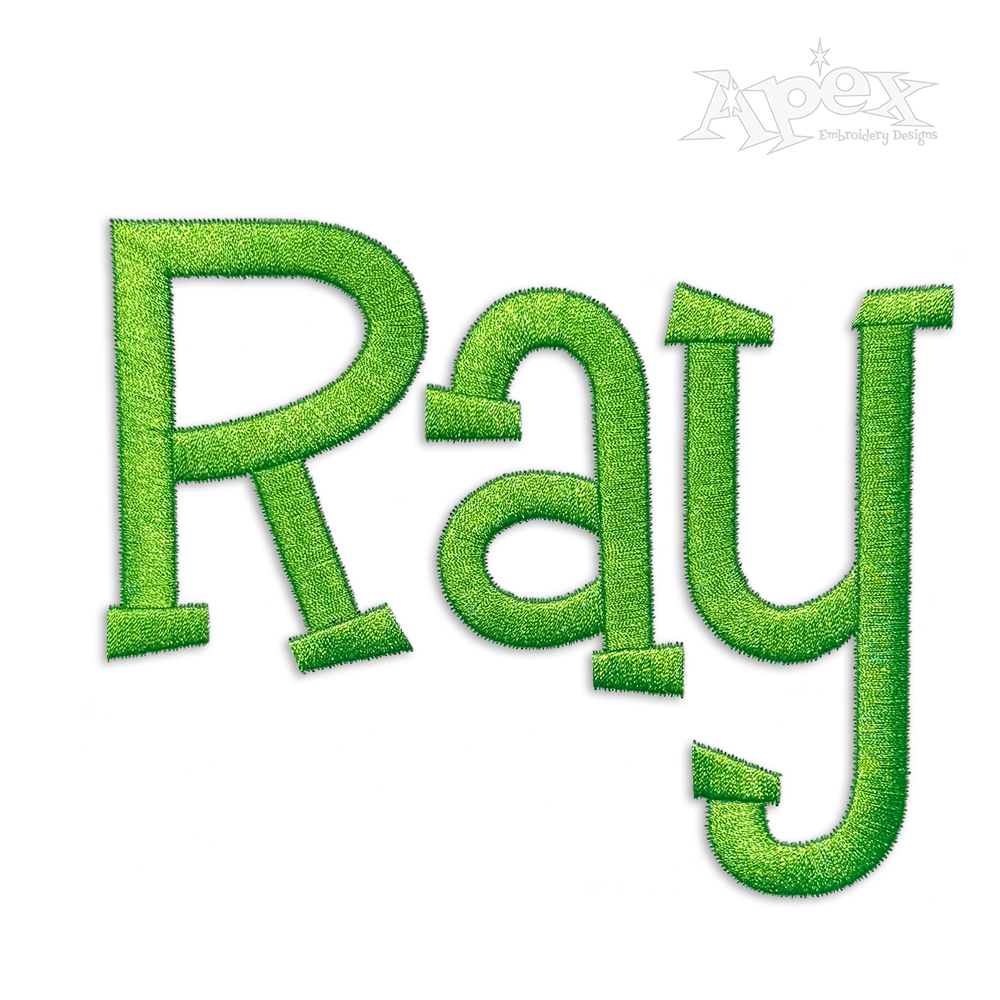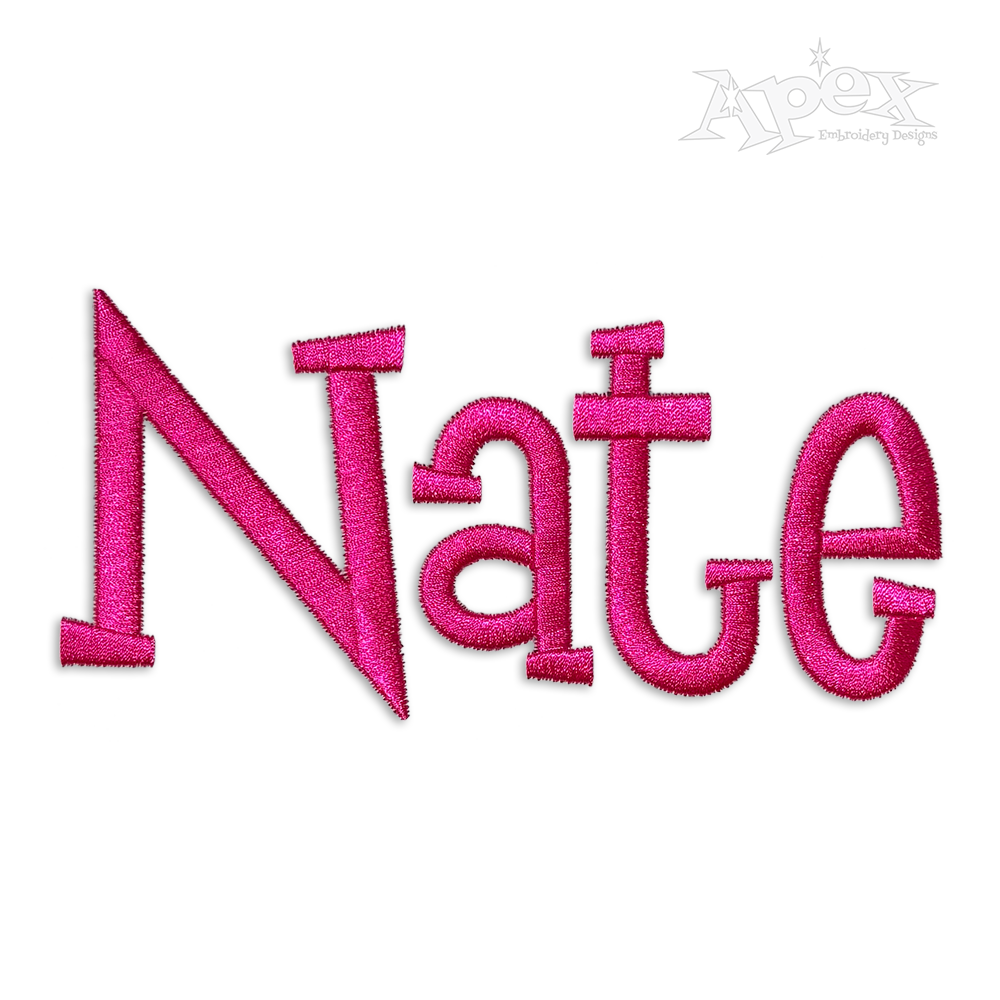
Mandingo Embroidery Fonts
There is an infectious, joyful vitality in bold typography, and the Mandingo Embroidery Font was digitized to bring that radiant energy straight to your embroidery hoop. Drawing inspiration from classic storybook titles and collegiate varsity lettering, this alphabet carries an unapologetic, rounded fullness that feels friendly, confident, and delightfully grounded. As digitizers, our goal was to craft a heavyweight satin stitch alphabet that commands presence without ever feeling rigid. Each letter blooms across the fabric with plump, tactile dimension, transforming everyday textiles into personalized keepsakes filled with charm and cheer.
Project Ideas for Mandingo
Thanks to its stout, readable letterforms and cheerful silhouette, Mandingo lends itself beautifully to a broad spectrum of personalized gifting and bespoke children's creations:
- Back-to-School Gear: Monogram heavy-duty canvas backpacks, lunch totes, pencil pouches, and duffle bags with high-visibility initials.
- Children’s Lounge & Sportswear: Stitch vibrant varsity-inspired names or single-letter emblems onto fleece pullovers, hoodies, and varsity jackets.
- Heirloom Nursery Accents: Personalize woven toy bins, canvas laundry hampers, and quilted play mats with baby initials.
- Celebration Apparel: Create custom birthday tees, holiday morning pajama sets, and personalized milestone tops that pop in family photographs.
- Plush Bath & Beach Towels: The substantial width of each satin stroke stands tall against thick terry cloth for resort-worthy poolside wraps.
Mandingo’s bold geometry allows for versatile positioning across structured goods and apparel:
- Center Chest: The definitive placement for single statement monograms or bold three-letter stacked arrangements on kids’ tees and sweaters.
- Accessory Pockets: Center the 2-inch files over zippered front compartments on totes and backpacks where durable, high-impact stitching is essential.
- Towel Hems & Borders: Align single initials or full names along the lower band of bath sheets and beach towels for crisp legibility.
- Cuff & Sleeve Bands: Feature a lone 2-inch initial just above the cuff of a cozy sweatshirt for an understated, sporty accent.
Mandingo Craft & Letterform Details
A font as generous in proportion as Mandingo demands expert digitizing to ensure it sews as smoothly as it looks on screen. Wide satin columns can easily suffer from puckering or tension distortion if neglected; to counter this, we designed custom foundation underlays that anchor the fabric securely before the top satin layer ever begins. These internal underlay trusses build a sturdy, cushioned scaffolding, giving every letter a raised, domed contour that reflects ambient light like polished ribbon.
We paid meticulous attention to the journey of the needle, fanning stitch angles naturally around curved junctions like the bowls of the ‘B’ and ‘R’ and the sweeping arch of the ‘C’. Corner edges are gently softened to prevent harsh needle grouping while preserving the crisp, squared-off footprint of the font. The result is a clean, frictionless sew-out that lays flat, stays plush, and holds up gracefully to countless trips through the wash.